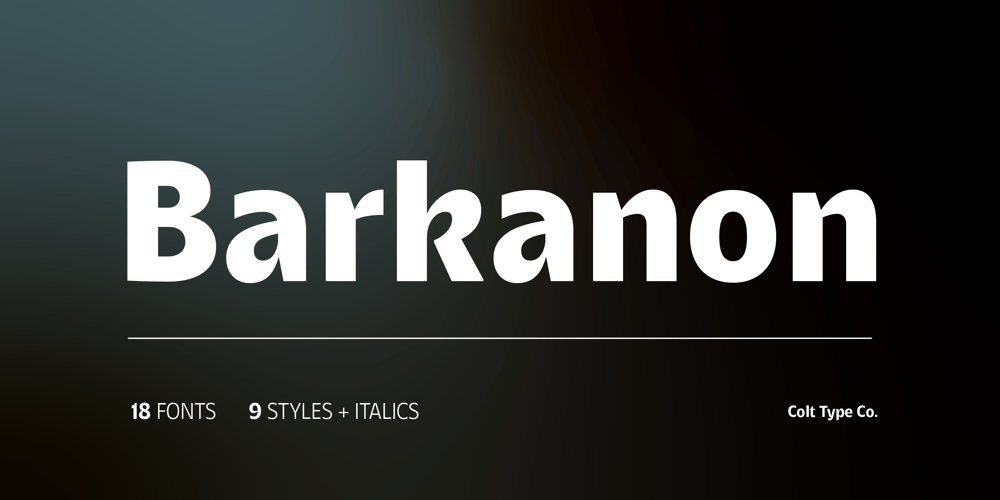
Barkanon
Barkanon font
Barkanon Font Family was designed by Adam Greasley and published by wearecolt. Barkanon contains 18 styles and family package options. Barkanon – A Strong, Versatile Serif with Timeless CharacterBarkanon is a serif typeface that balances strength and elegance, combining classic influences with a contemporary approach. Its letterforms are structured and confident, with sharp, angular details softened by smooth curves, creating a typeface that feels both assertive and refined.Designed with versatility in mind, Barkanon comes in six weights, from Light to Black, each with a matching italic. The lighter weights offer a sense of openness and clarity, making them well-suited for body text, while the heavier weights have a bold presence that works beautifully in headlines, branding, and editorial design. The italics add a subtle dynamic contrast, keeping the rhythm natural and fluid.Barkanon’s proportions are balanced for readability, with carefully spaced letterforms that adapt well to both print and digital environments. It has a strong, grounded feel in display settings—ideal for logos, signage, and packaging—while remaining legible and composed in long-form text. Whether used in bold, expressive compositions or in more restrained typographic layouts, it retains its distinct character without overwhelming the design.There’s a quiet confidence in Barkanon. It doesn’t rely on ornamentation or excess but instead on the clarity of well-drawn forms and thoughtful details. It’s a typeface that feels at home in many settings, offering designers a reliable and adaptable tool with just enough personality to leave a lasting impression.